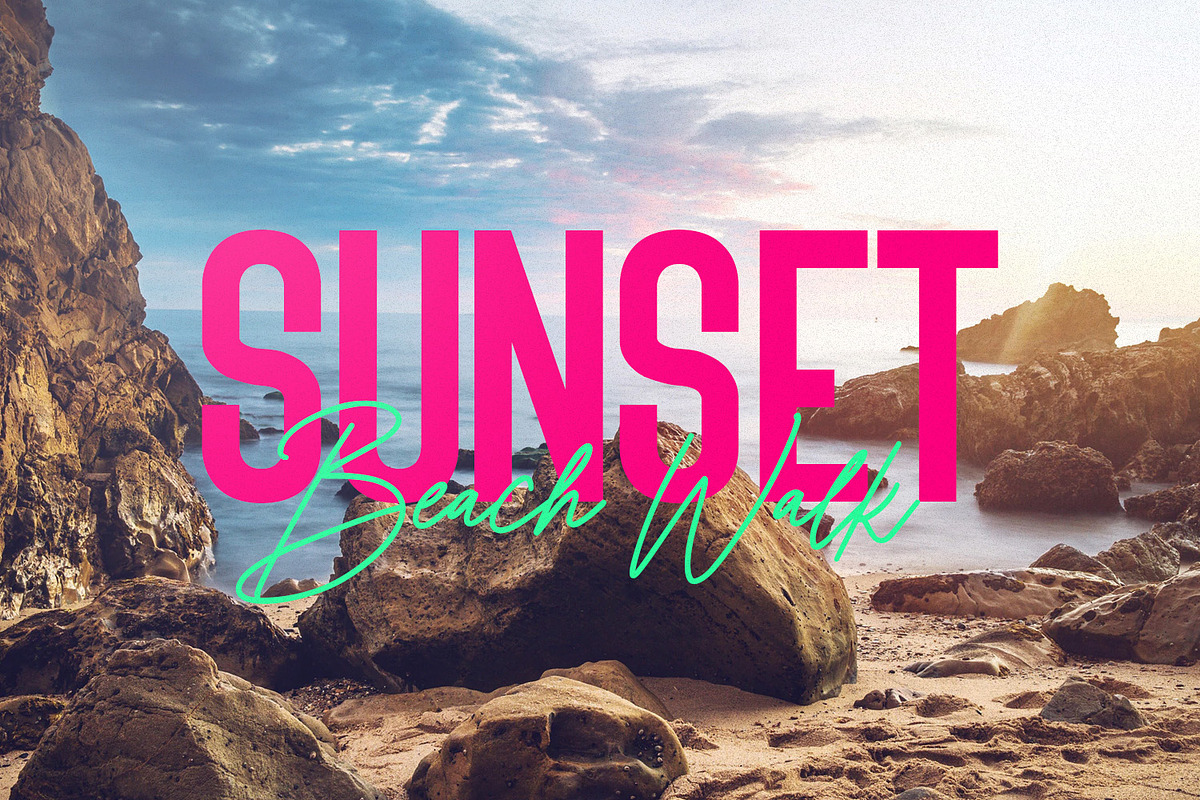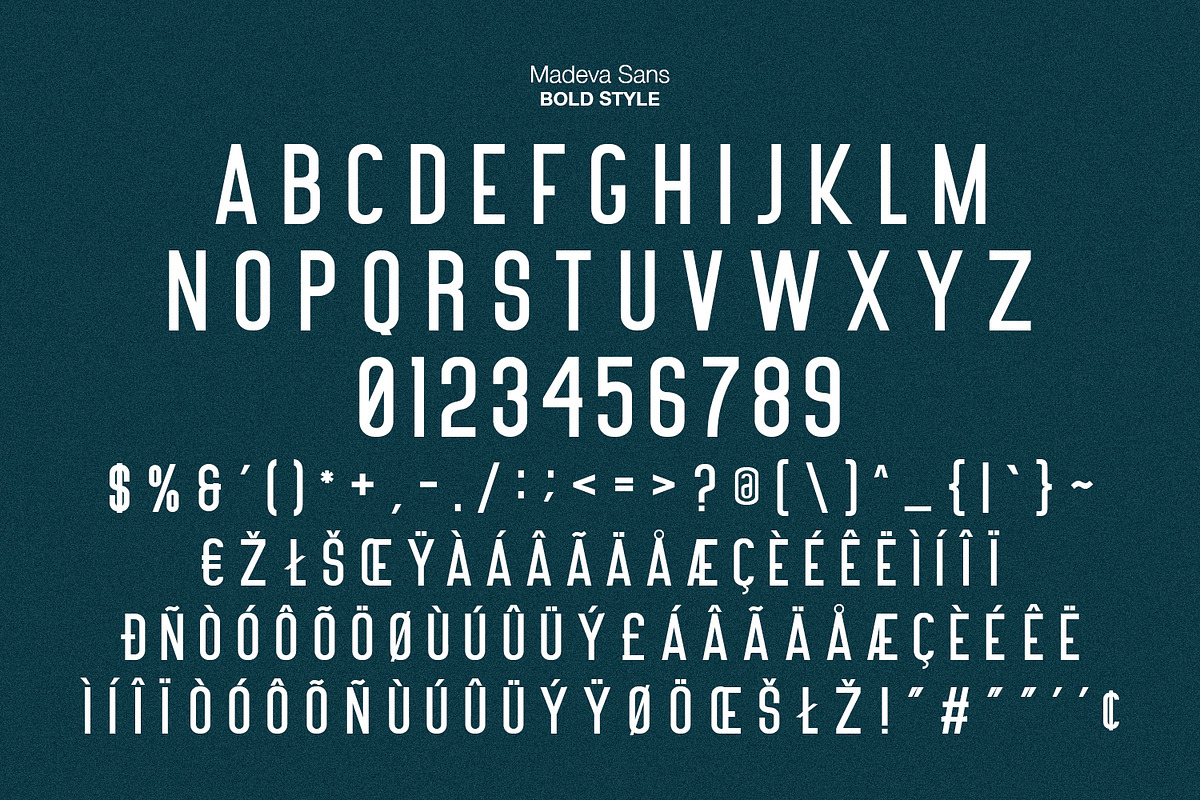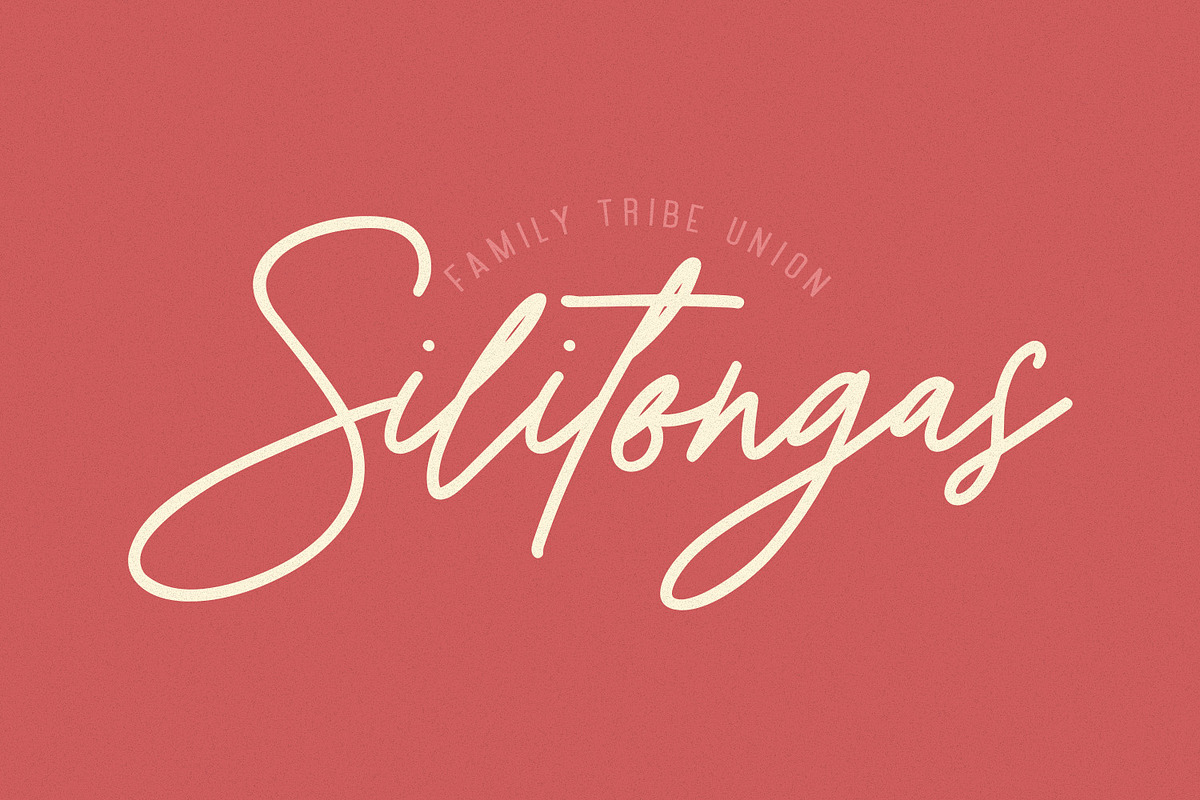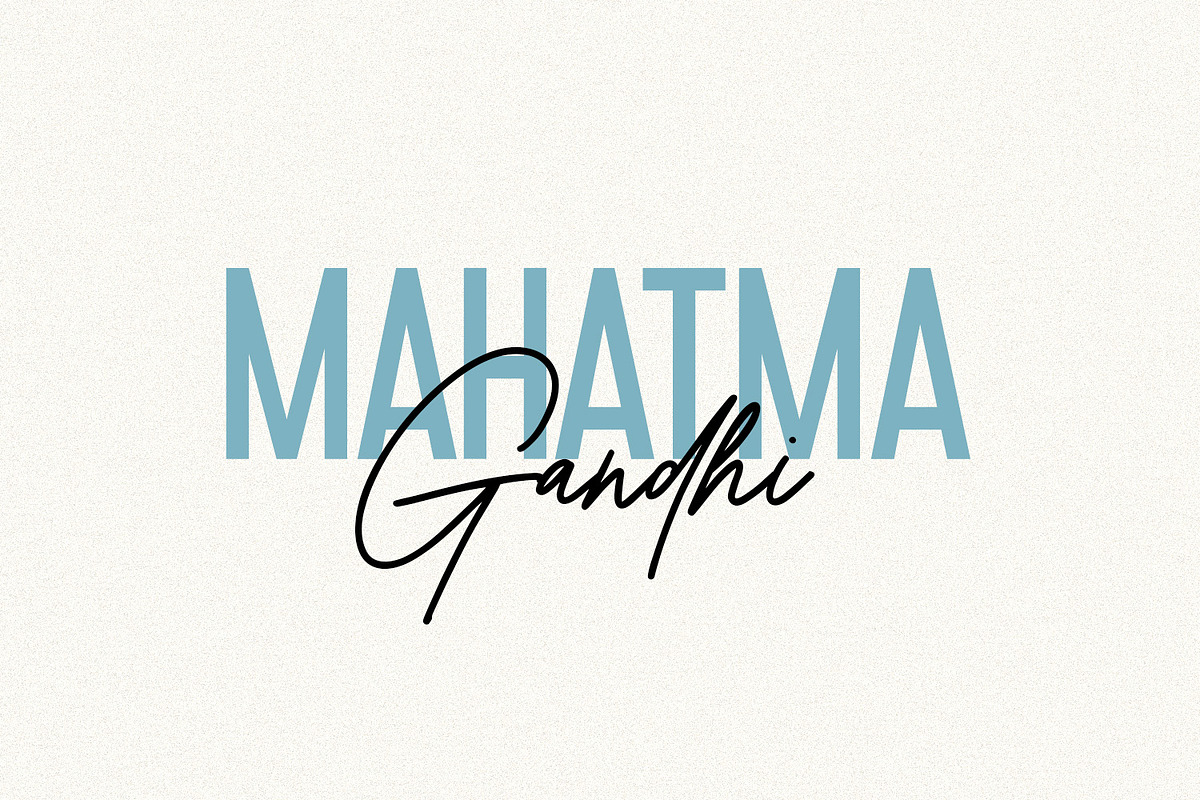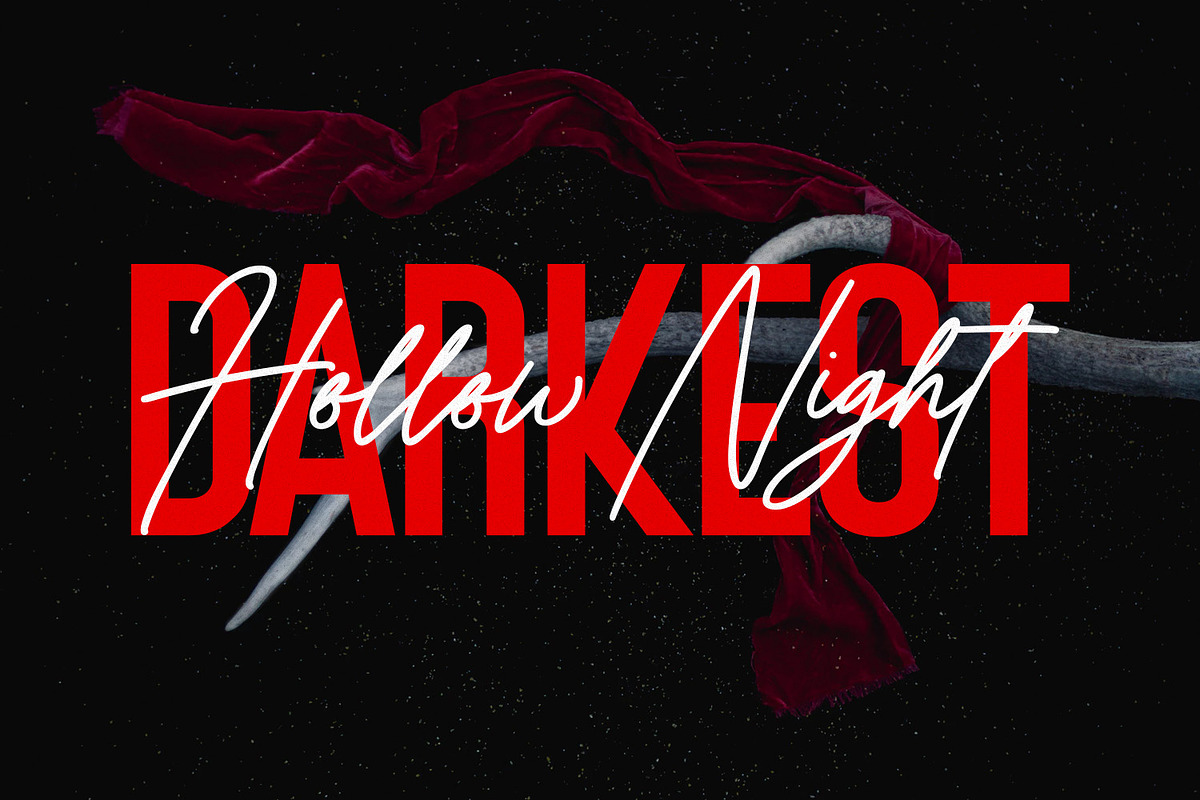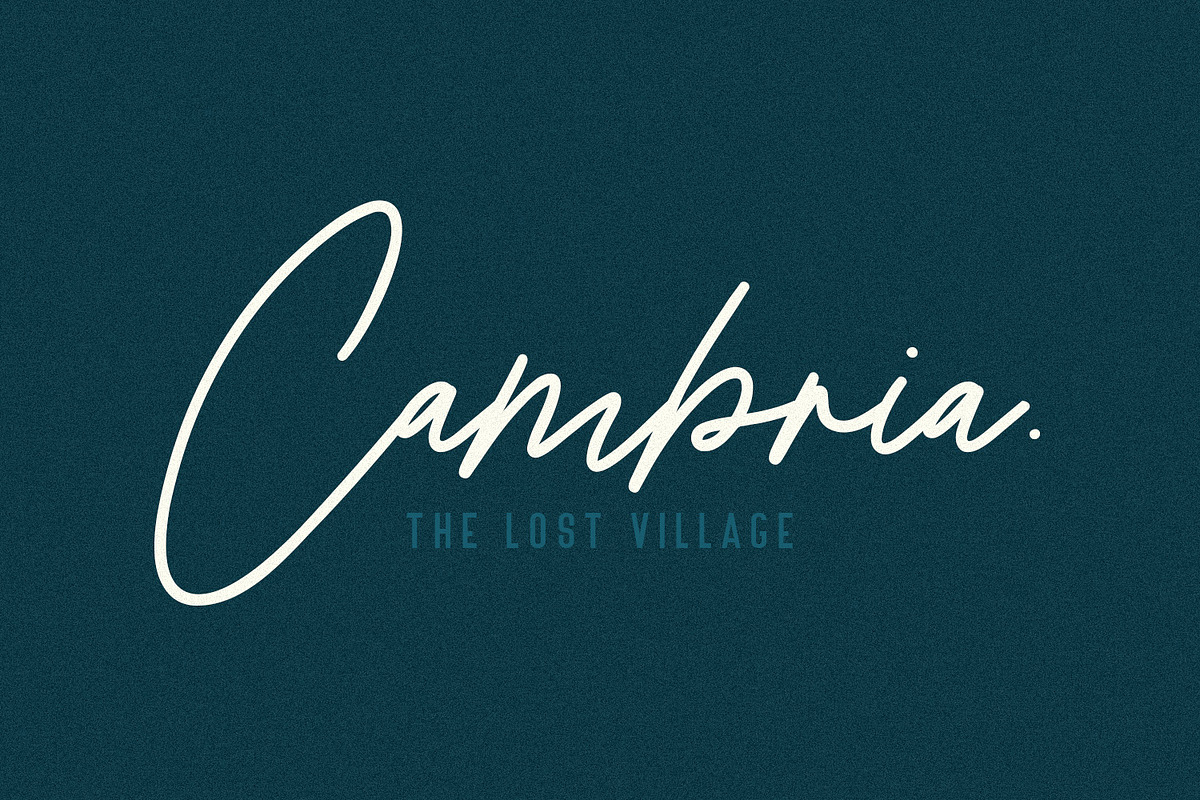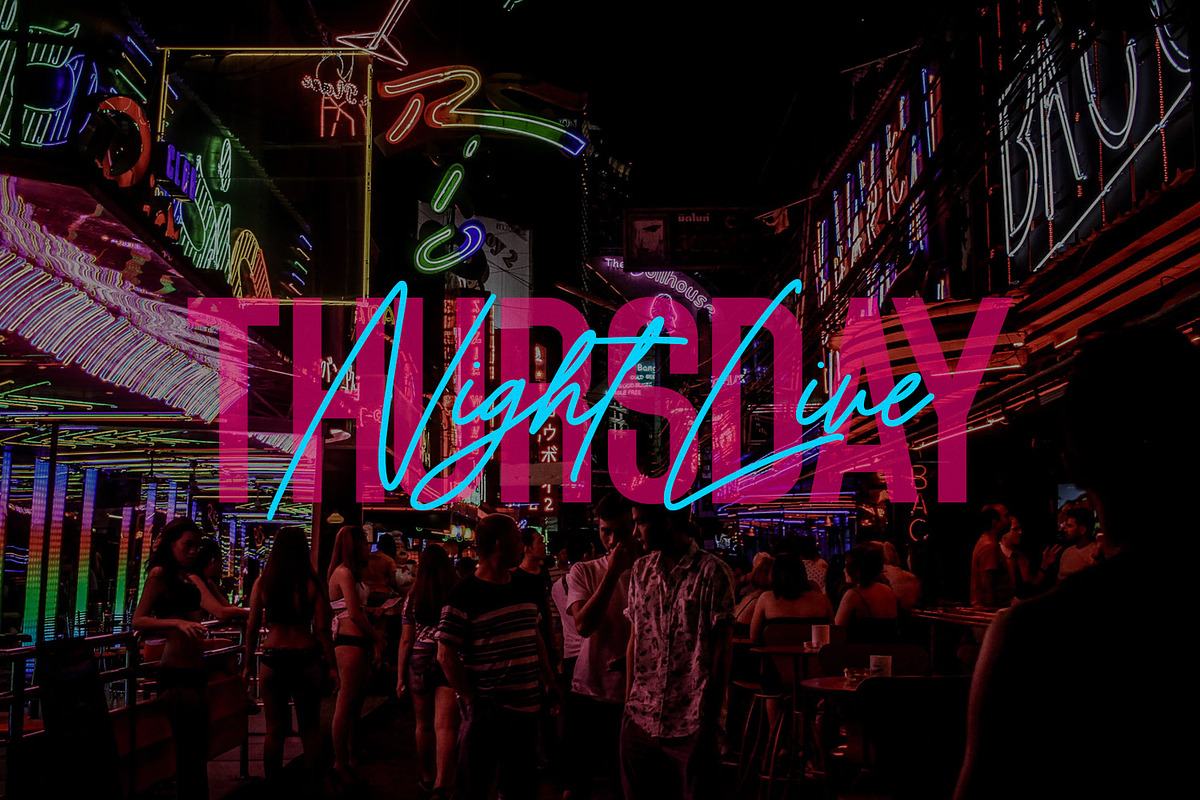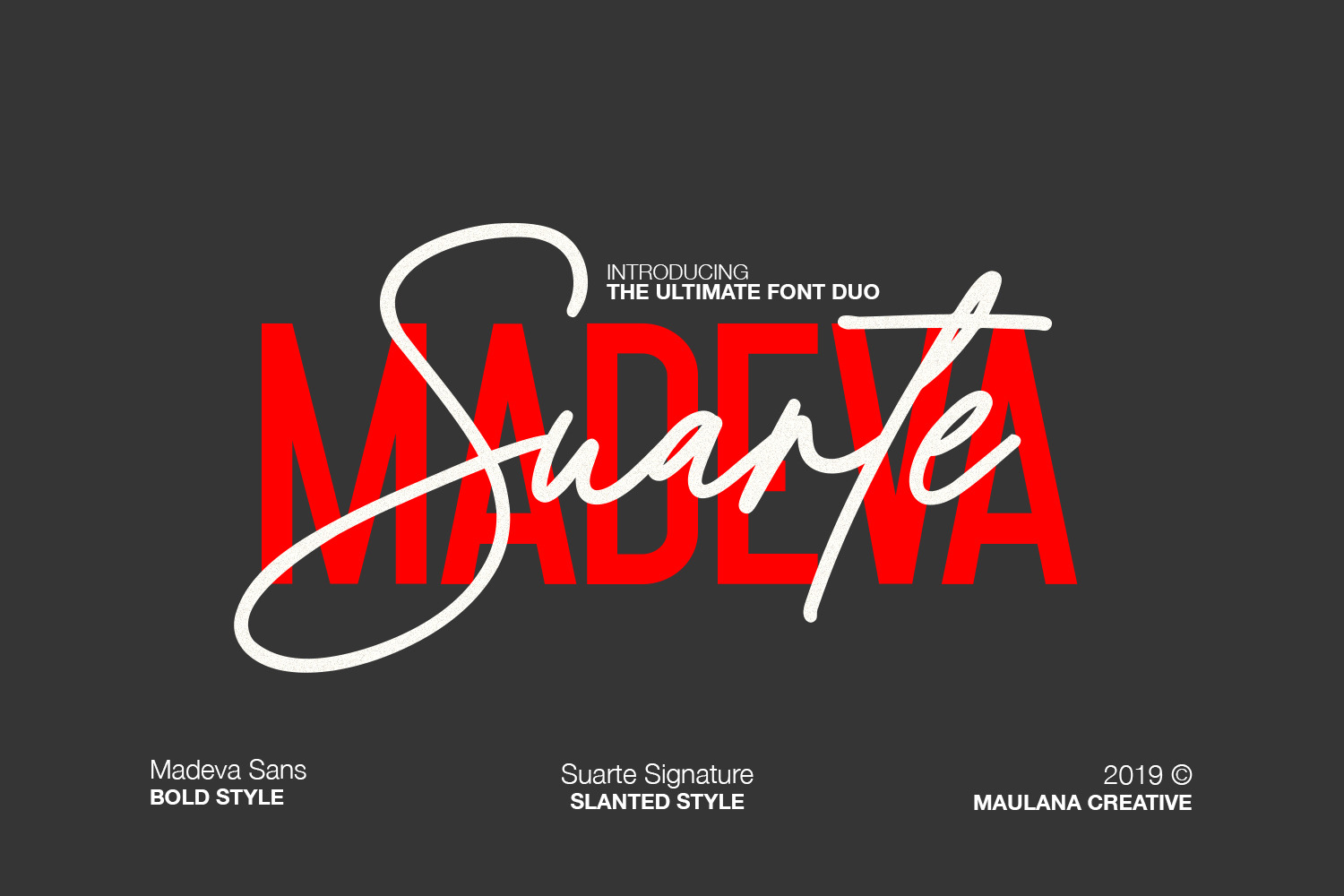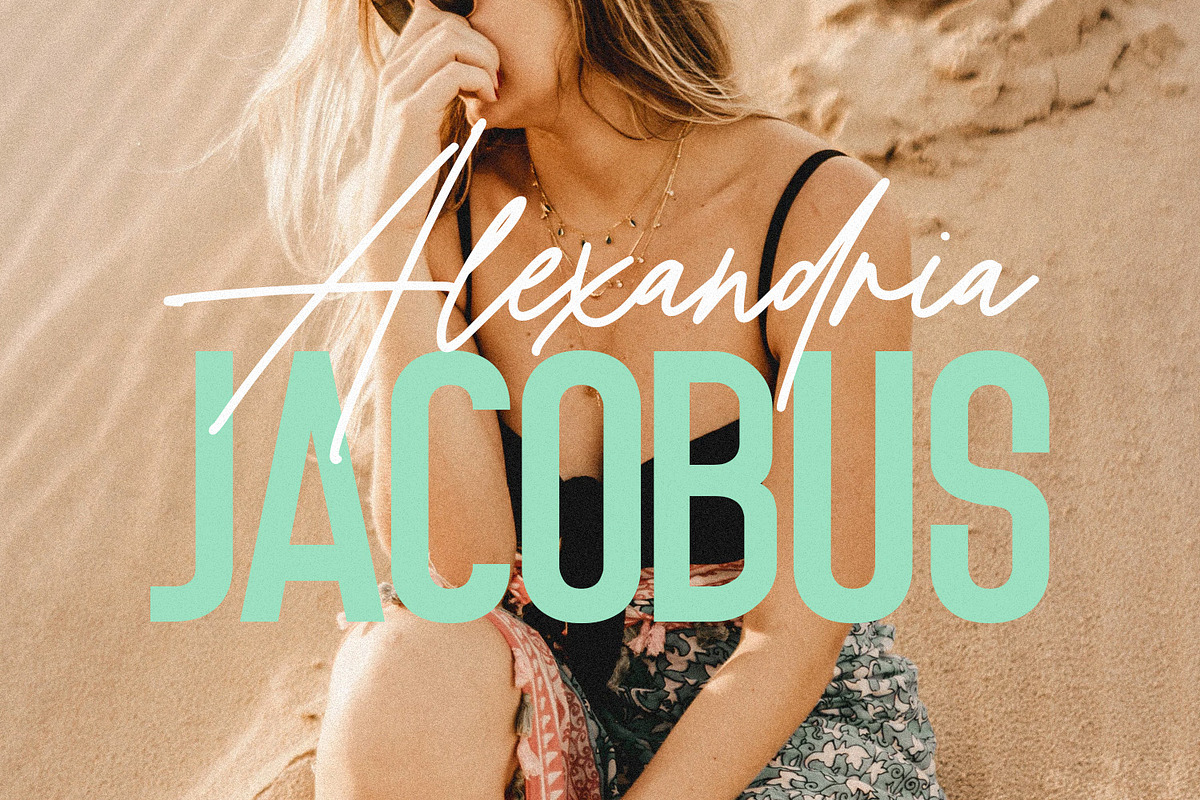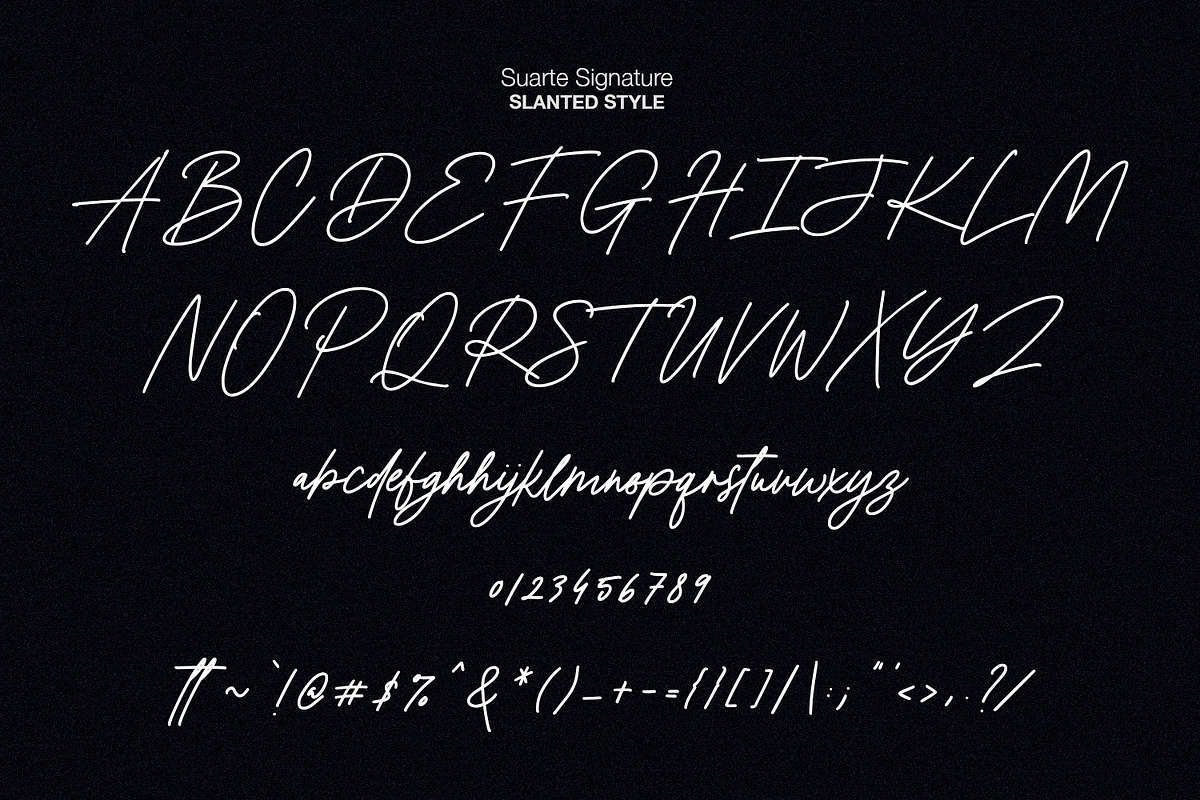
Madeva Suarte Font Duo
Give your designs an authentic brush handcrafted feel.”Madeva Suarte” is perfectly suited to signature, stationery, logo, typography quotes, magazine or book cover, website header, clothing, branding, packaging design and more.